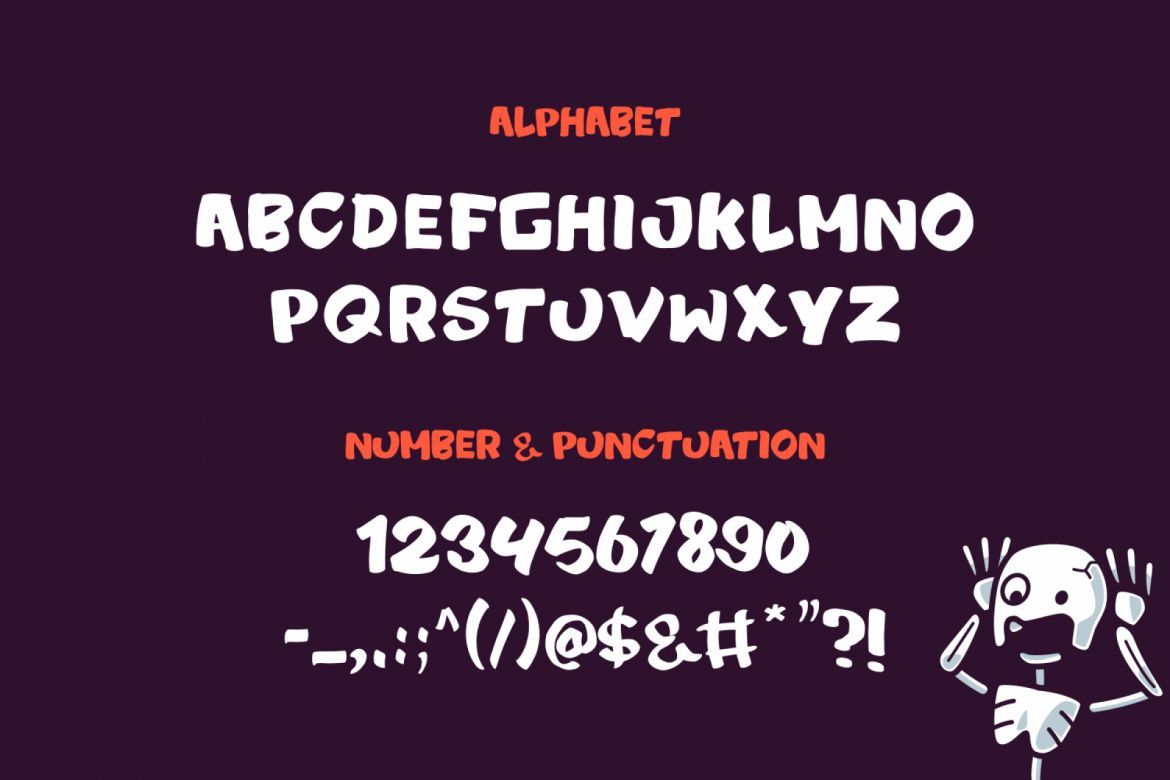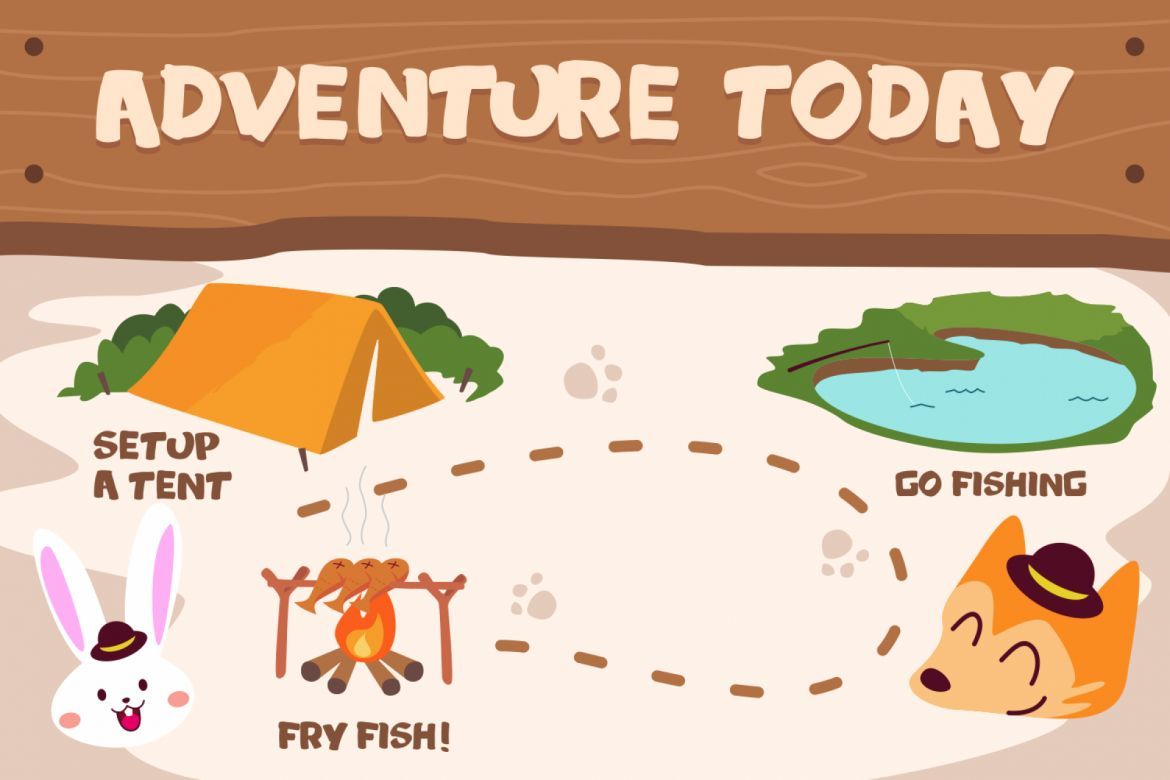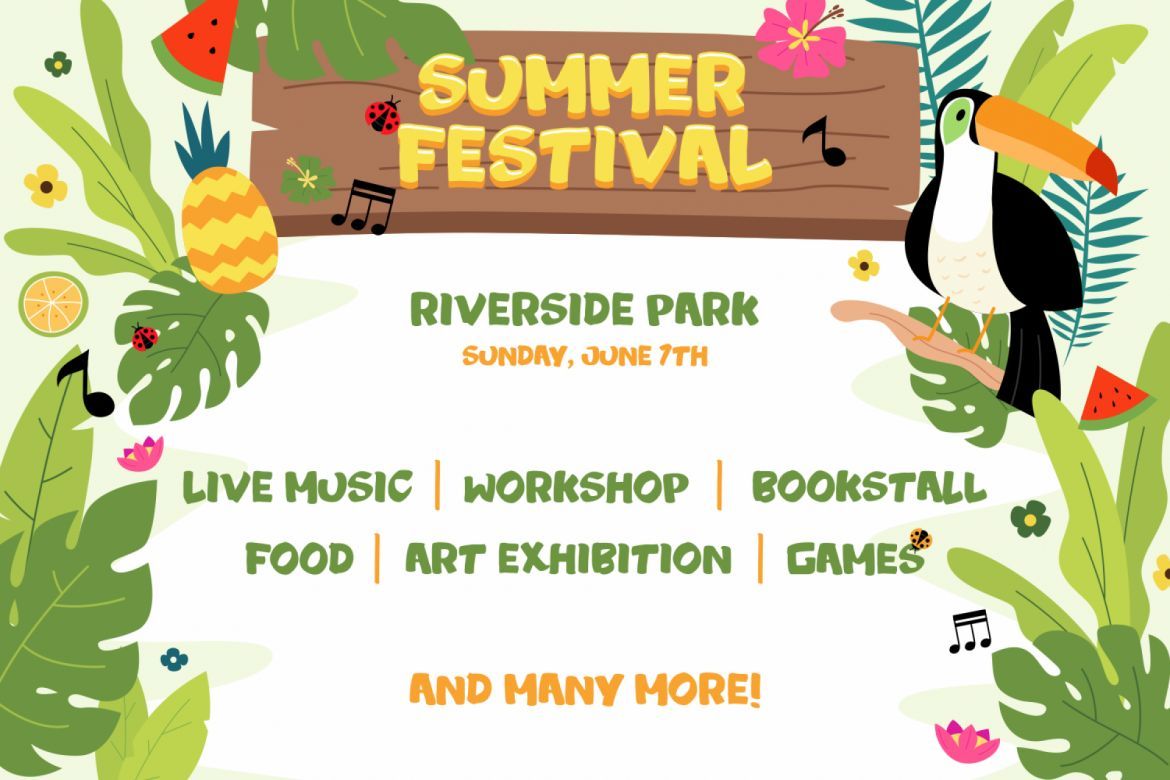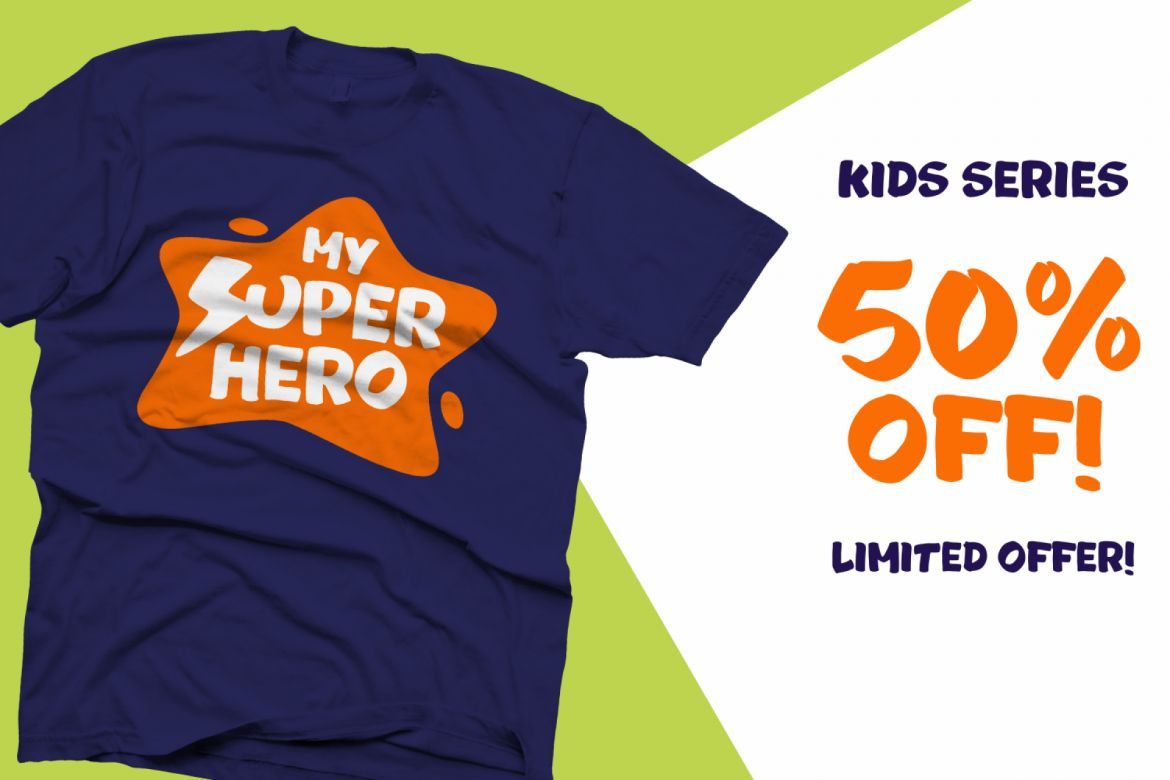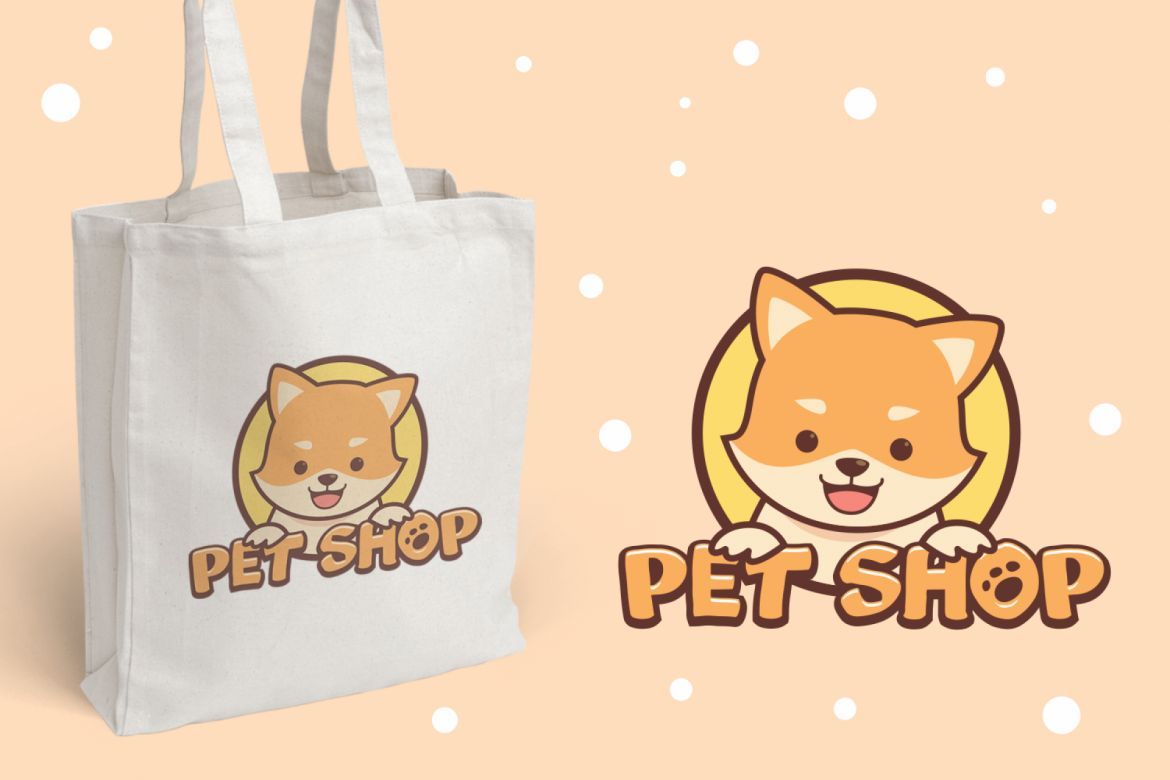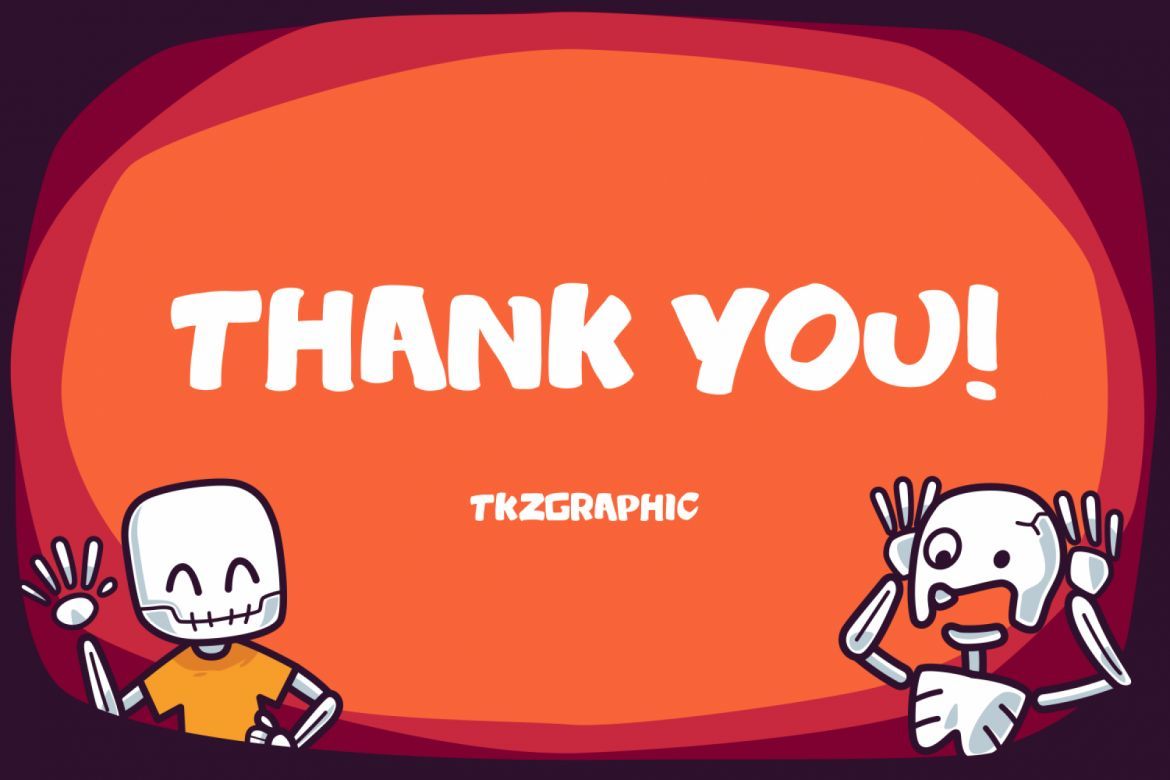
Zombye Display Font
Inspired by all things scary, Zombye is the perfect spooky, and fun Halloween font. It will transform any design idea into an eerie and weird craft!
• bold and easy to read
• very suitable for fun display font